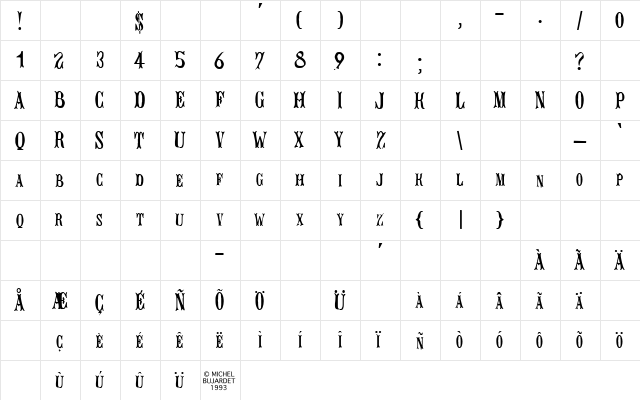
BujardetFreres Regular
| Copyright | Michel Bujardet 1993 - Cette fonte est inspire du panneau d'affichage de Bujardet Frres l'exposition universelle de 1900, dont les caractres m'on sembl dignes de faire une nouvelle police. |
Design Context for BujardetFreres Typeface
BujardetFreres is a composed and adaptable typeface that performs quietly and consistently across a wide range of design contexts.